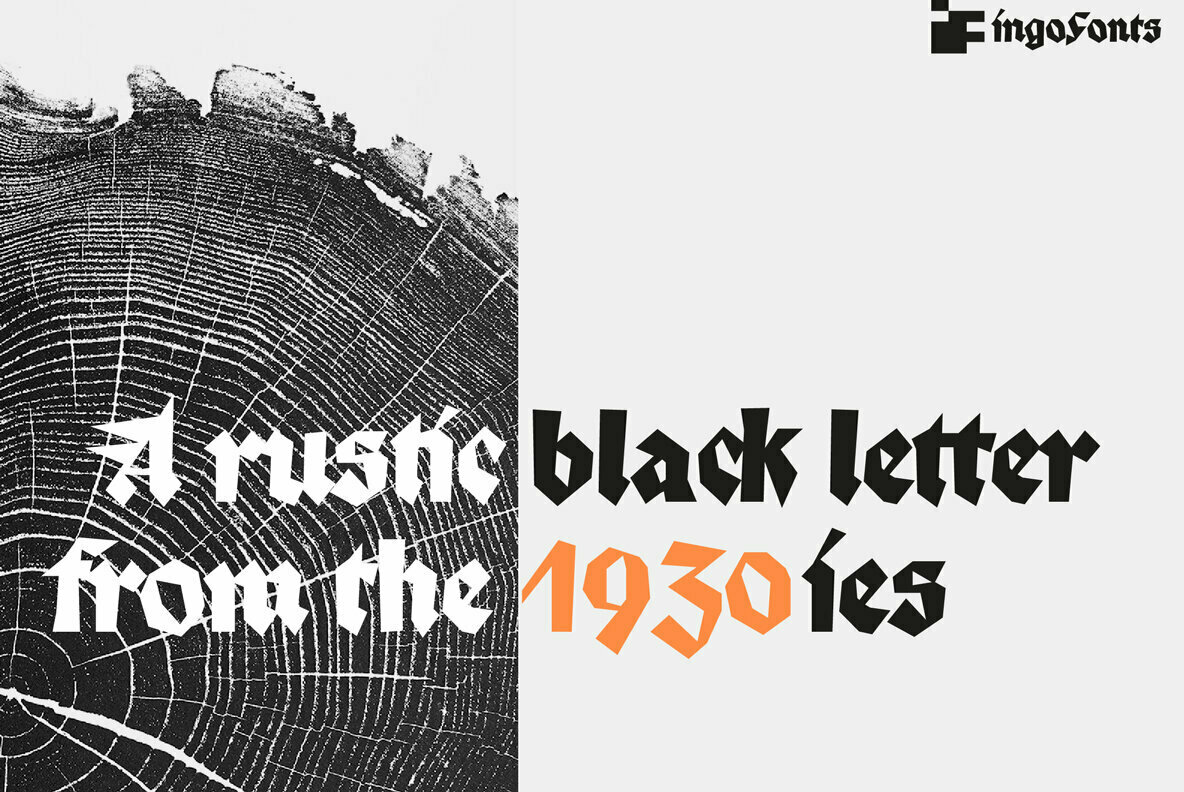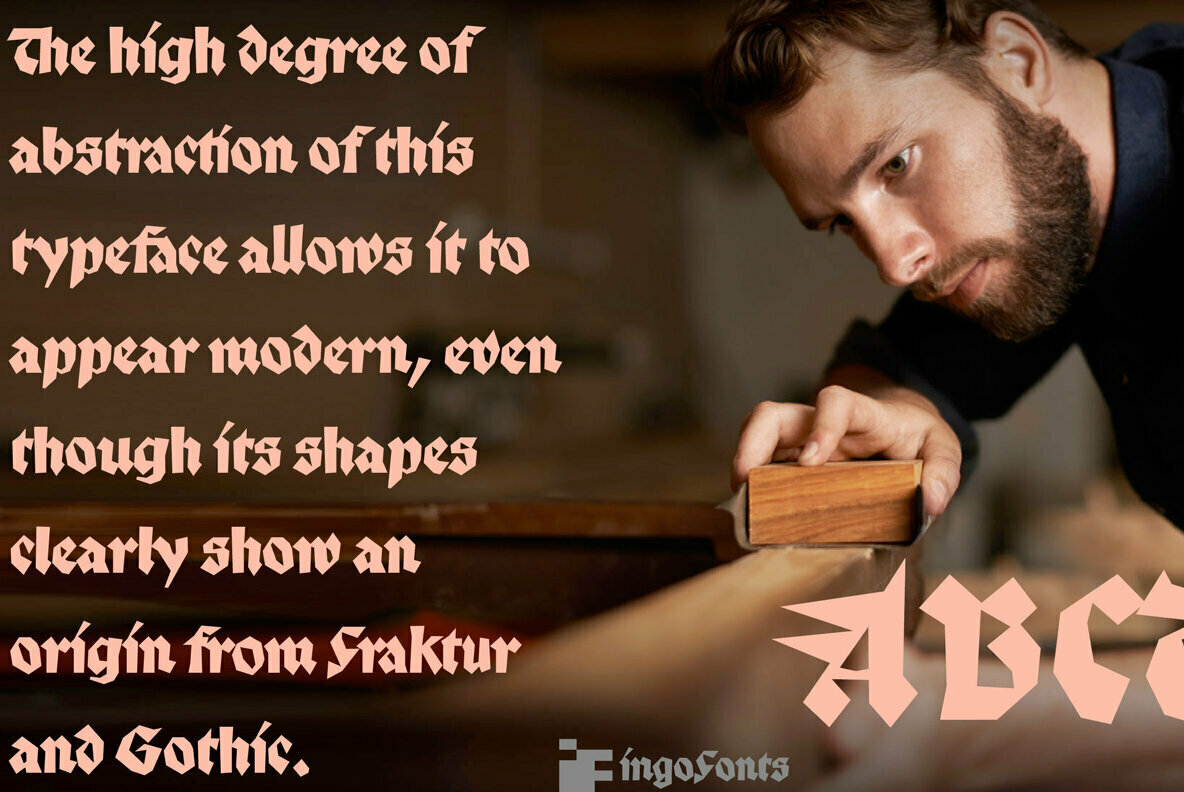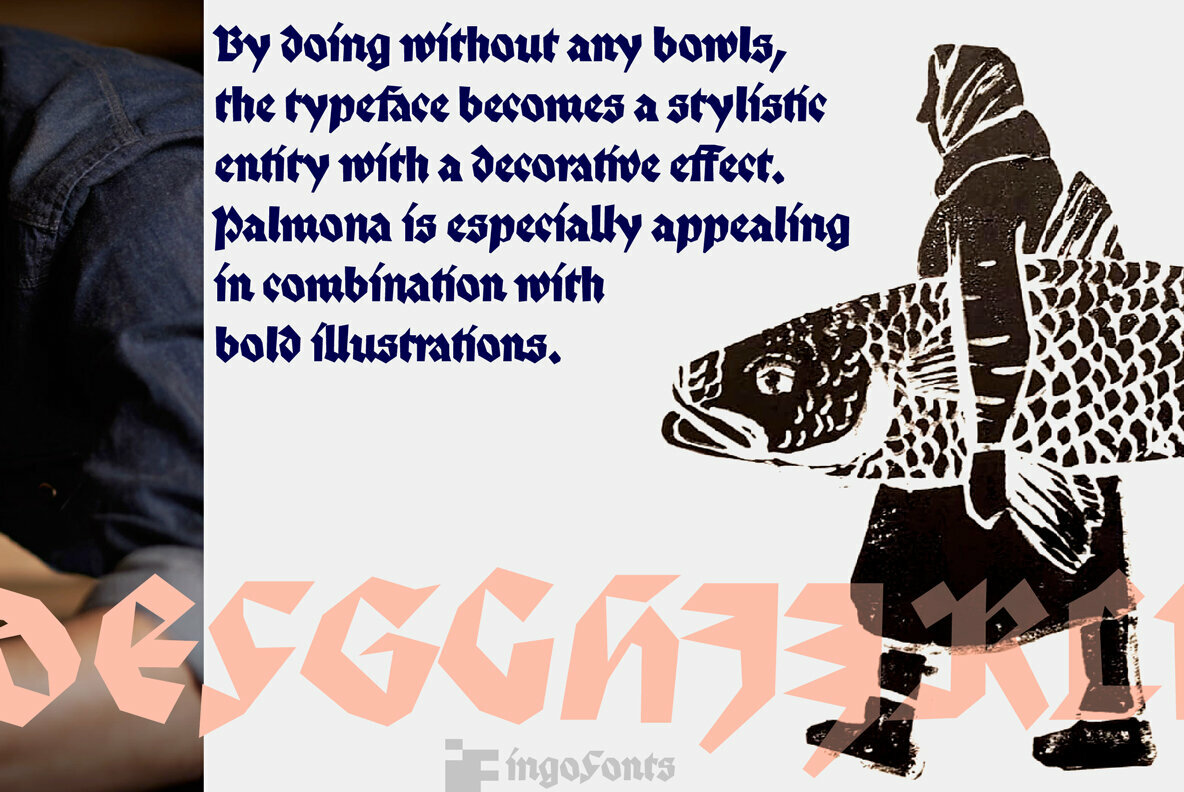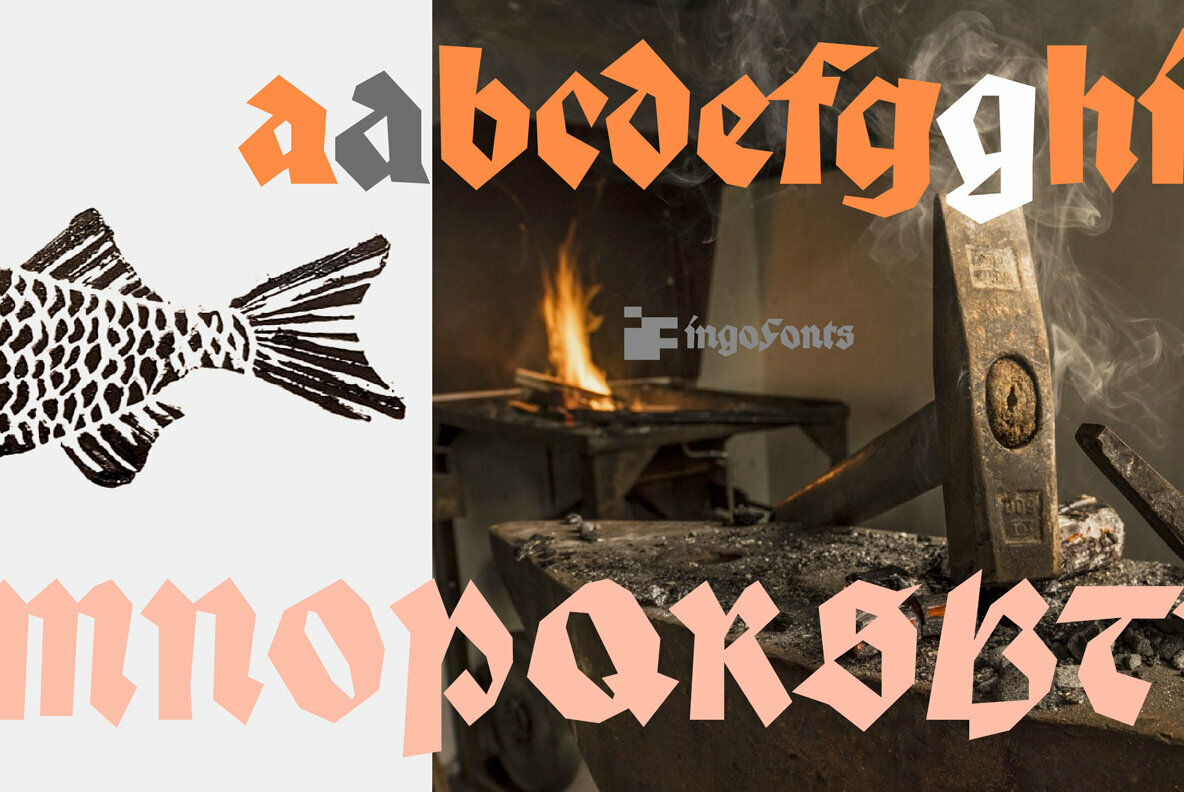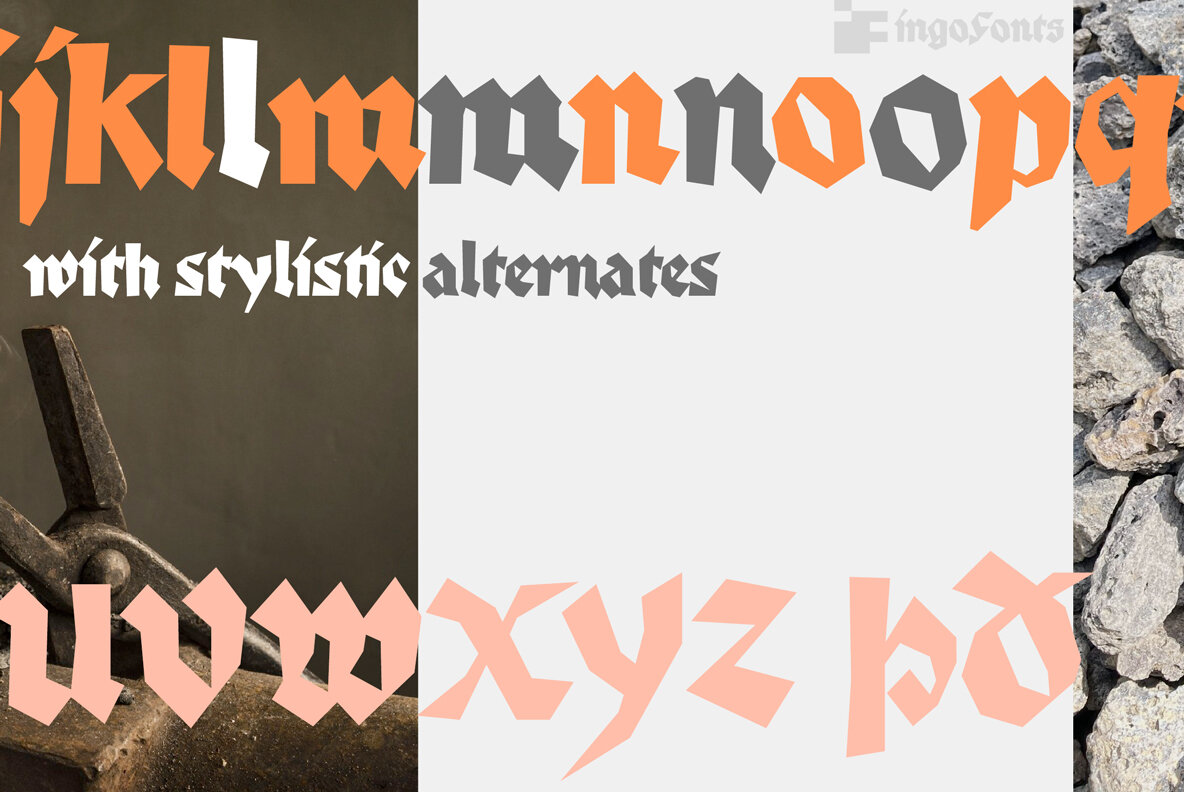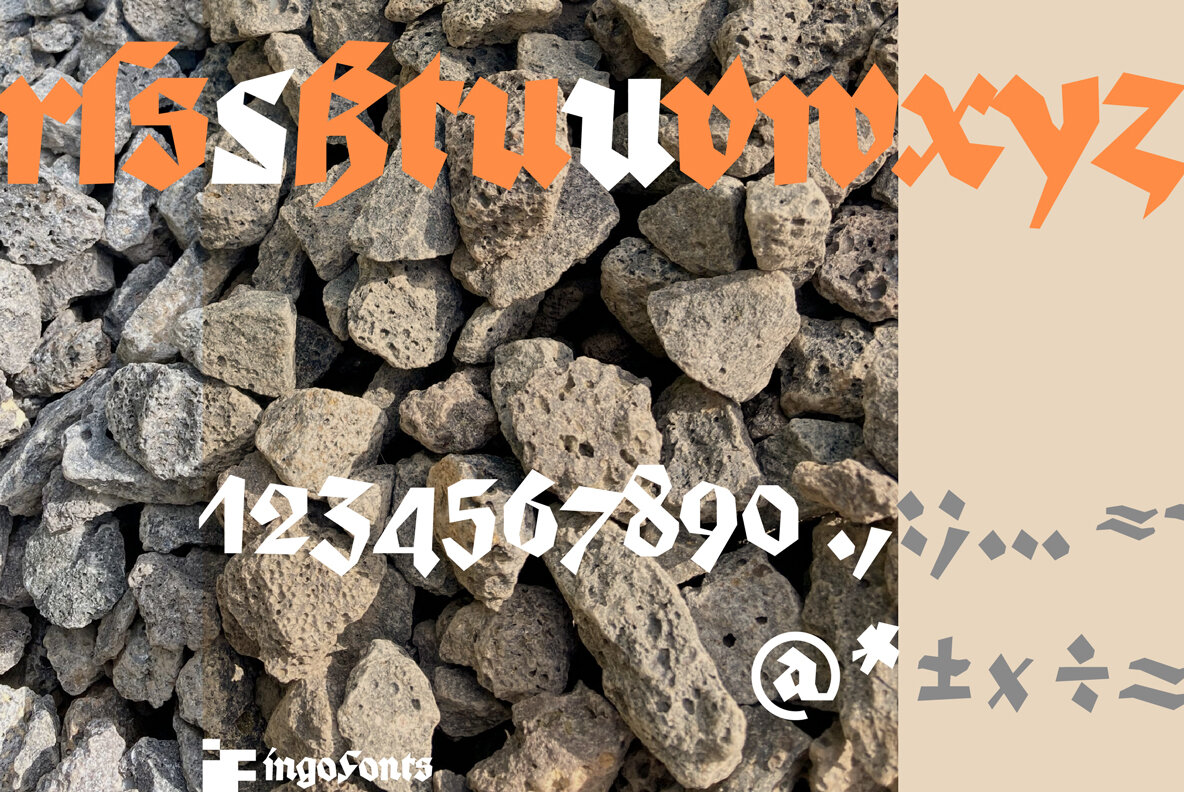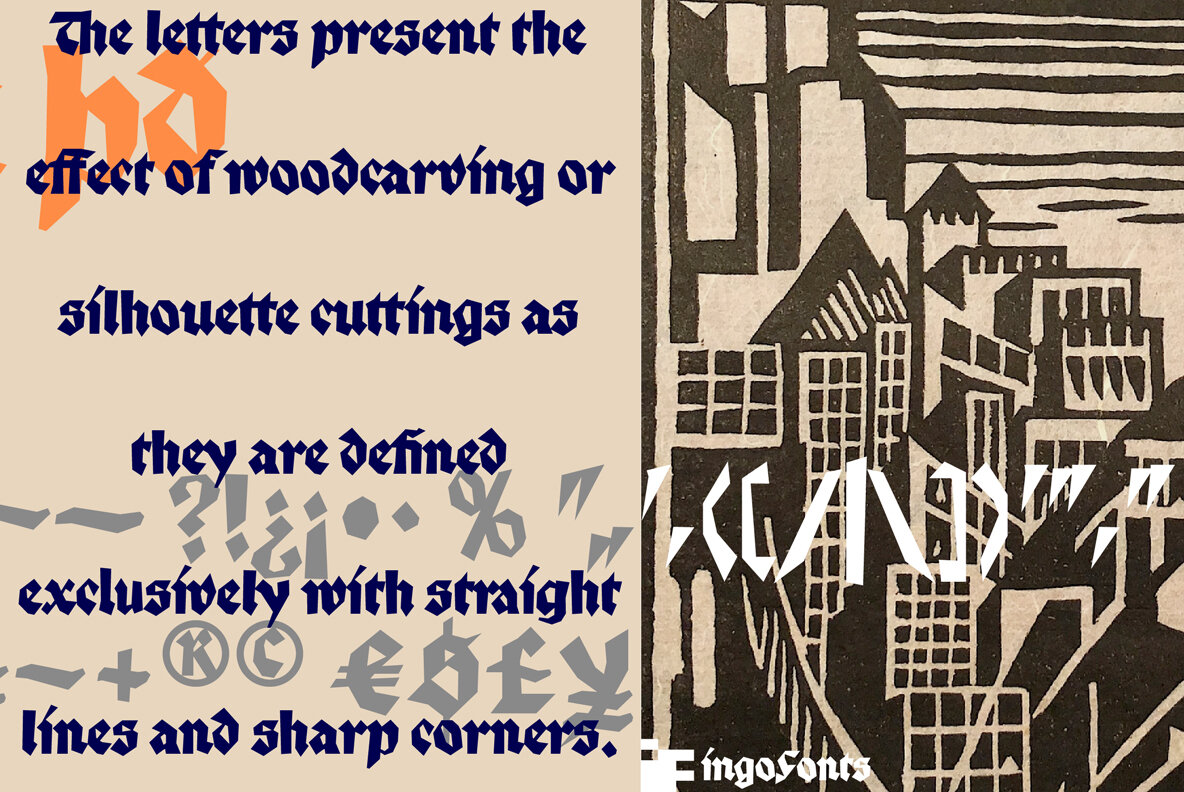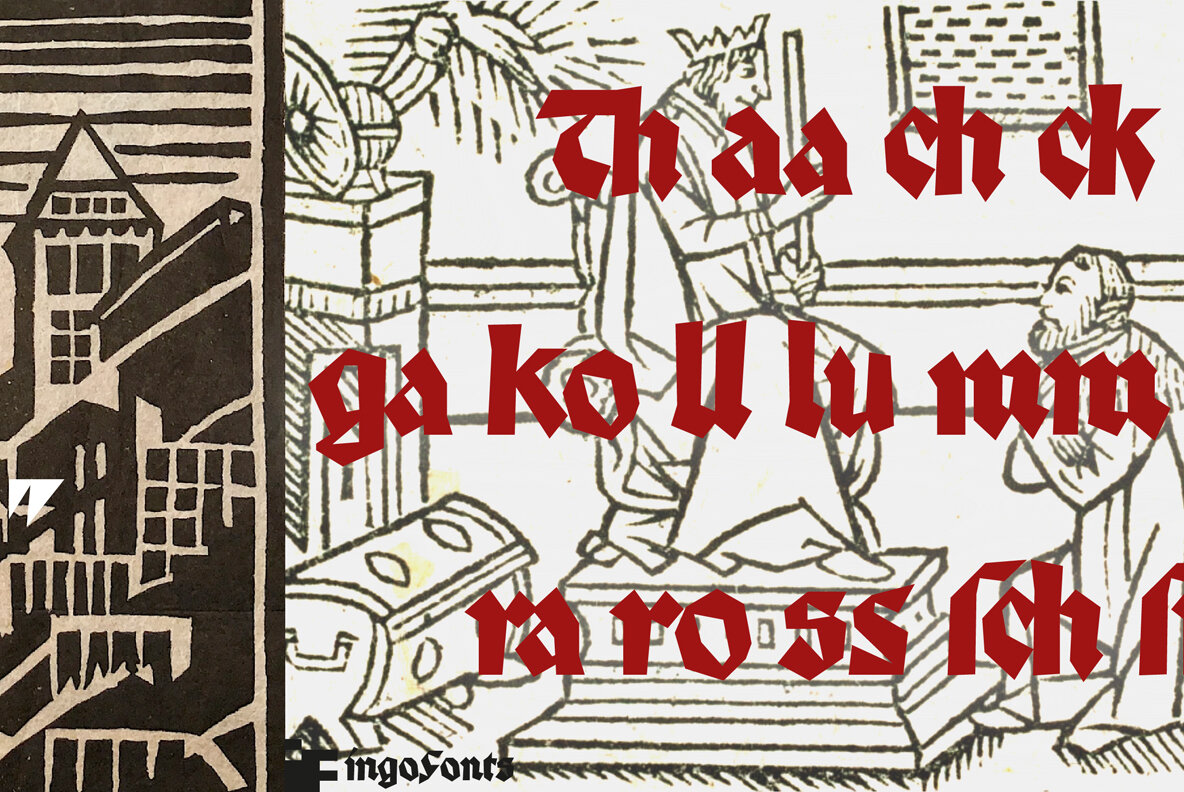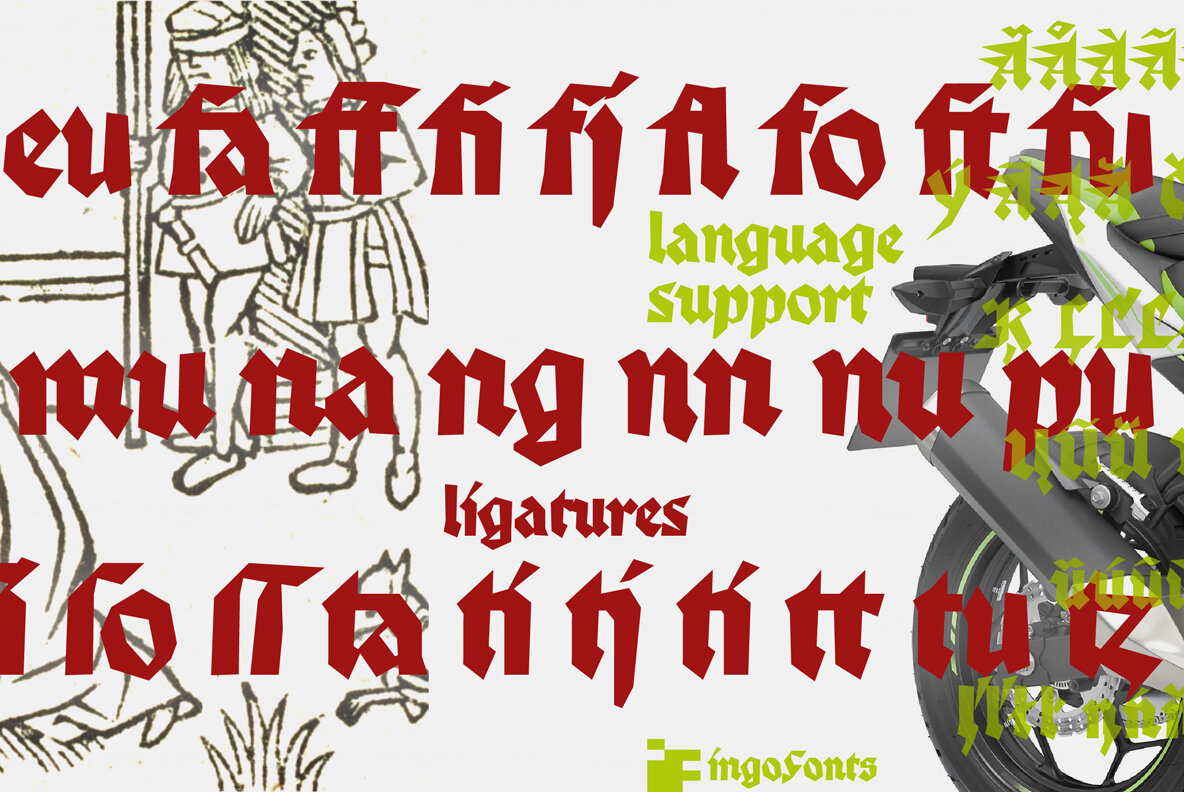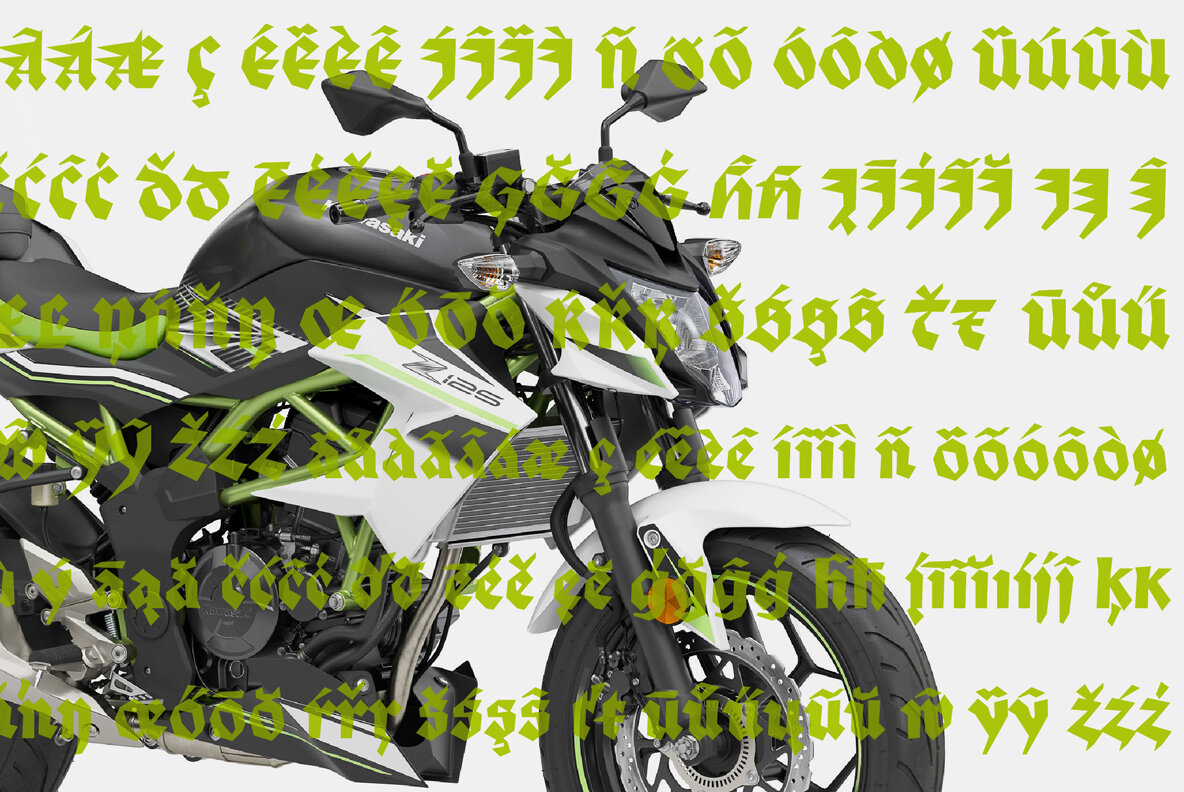
A rustic black letter from the 1930ies — with stylistic alternates.
The high degree of abstraction of this typeface allows it to appear modern, even though its shapes clearly show an origin from Fraktur and Gothic. The letters present the effect of woodcarving or silhouette cuttings as they are defined exclusively with straight lines and sharp corners. By doing without any bowls, the typeface becomes a stylistic entity with a decorative effect. Palmona is especially appealing in combination with bold illustrations.
Some of the characters of Palmona are available in one or more alternate forms which can be accessed manually or automatically. Use of these alternates is most easily operated with OpenType-Functions Standard-Ligatures and Discretional Ligatures in the user program. With Standard Ligatures activated, problematic letter compositions are substituted with appropriate ligatures. Likewise, in certain letter combinations the alternates are inserted. The Discretional Ligatures include additional alternatives.
Configuration of the characters of the Palmona font is according to Unicode ISO 8859-1 (Latin1). Consequently all characters for all European languages with Latin type are covered — including Turkish, the Baltic languages, East European and Scandinavian languages.
Congruent with the time of its origin and typical for black letter typefaces, Palmona also includes a long s as well as — uncommon but definitely reasonable — a capital ß. Both characters are automatically applied with the activation of Discretional Ligatures, and the associated ligatures appear automatically as well. When using ”long s,“ you must ensure the correct use of the rules for the Fraktur font: ”round s“ is always at the end of the word, also in compound words. For those of you who want to be even more correct, read the corresponding >> article in Wikipedia.